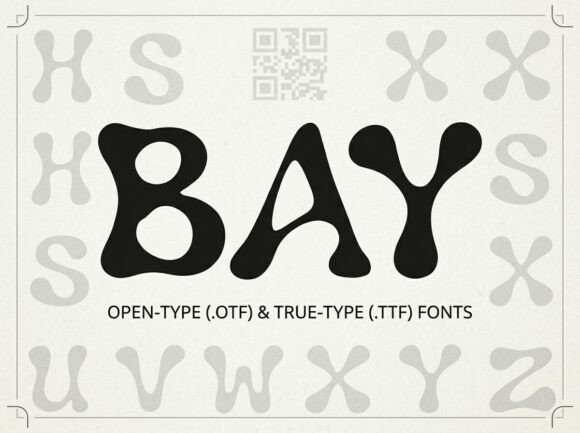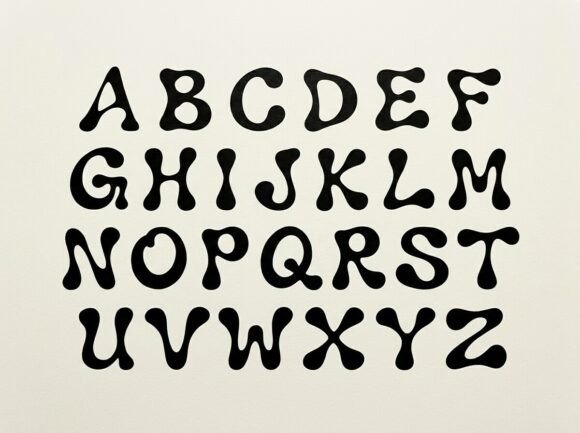
Bay Font: A Hand-Drawn Groovy Typeface for the Free-Spirited
Welcome to the vibrant world of Bay Font, a hand-drawn groovy typeface that embodies the carefree spirit of the 1970s. This psychedelic font is designed to infuse your visual communication with a sense of artistic freedom, whimsy, and playfulness. With its heavy, fluid letterforms and “lava-lamp” curves, Bay Font is the perfect choice for designers and crafters looking to add a touch of retro charm to their projects.
The Inspiration Behind Bay Font
Bay Font draws inspiration from the iconic typography of the 1970s, an era known for its artistic experimentation and free-spirited nature. The font’s creator aimed to capture the essence of this bygone era, distilling its playful, carefree vibe into a modern typeface that’s both sophisticated and approachable. The result is a font that’s equal parts nostalgic and fresh, perfect for projects that require a dash of retro flair.
Design Features of Bay Font
Bay Font boasts a range of design features that make it a standout typeface. Its chunky visual weight and organic rhythm provide a sense of handcrafted warmth, while its fluid letterforms and melting baseline evoke the artistic freedom of the 1970s. The font’s “lava-lamp” curves add a touch of psychedelic whimsy, making it perfect for projects that require a bit of visual interest.
Use Cases for Bay Font
Bay Font is an incredibly versatile typeface that can be used in a variety of contexts. Here are some of the most popular use cases:
- Artisanal Lifestyle Branding: Bay Font is perfect for brands that want to convey a sense of handcrafted quality and uniqueness. Its retro aesthetic and sophisticated vibe make it an excellent choice for lifestyle brands that want to stand out from the crowd.
- Creative Editorial Headers: Add a touch of psychedelic whimsy to your editorial content with Bay Font. Its bold, chunky letterforms make it perfect for headers and titles that need to grab attention.
- Music Festival Posters: Bay Font is a natural fit for music festival posters and promotional materials. Its retro aesthetic and playful vibe make it perfect for festivals that want to convey a sense of fun and creativity.
- Engaging Digital Content: Bay Font can add a touch of personality to your digital content, from social media graphics to blog posts. Its handcrafted warmth and effortless cool make it perfect for brands that want to connect with their audience on a human level.
Why Choose Bay Font?
So why choose Bay Font for your next project? Here are just a few reasons:
- Unique Aesthetic: Bay Font offers a unique aesthetic that’s hard to find in modern typefaces. Its retro charm and psychedelic whimsy make it perfect for projects that require a bit of visual interest.
- Versatility: Bay Font is an incredibly versatile typeface that can be used in a variety of contexts, from branding and editorial content to music festival posters and digital content.
- Handcrafted Warmth: Bay Font’s handcrafted warmth and effortless cool make it perfect for brands that want to convey a sense of personality and human connection.
Bay Font is a hand-drawn groovy typeface that’s perfect for designers and crafters looking to add a touch of retro charm to their projects. Its unique aesthetic, versatility, and handcrafted warmth make it an excellent choice for a wide range of applications. Whether you’re working on a branding project, editorial content, or music festival posters, Bay Font is sure to bring a sense of psychedelic whimsy and artistic freedom to your visual communication.